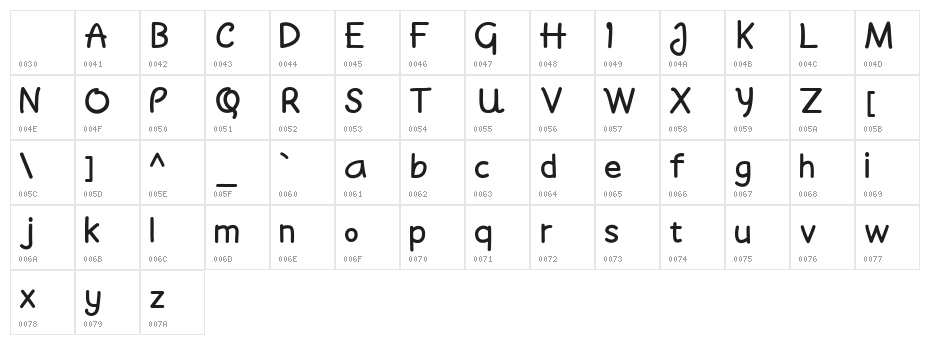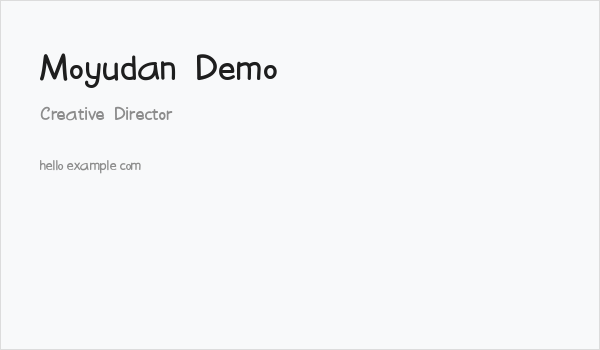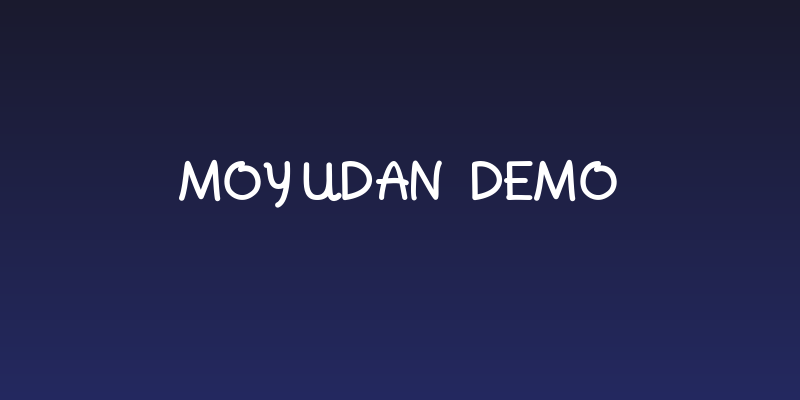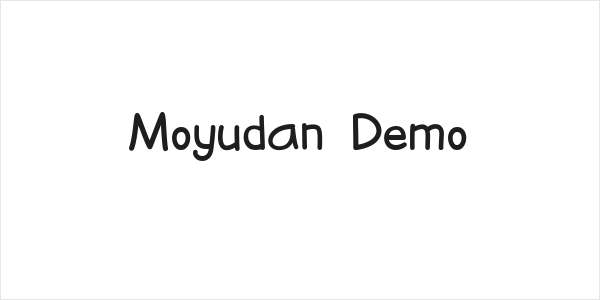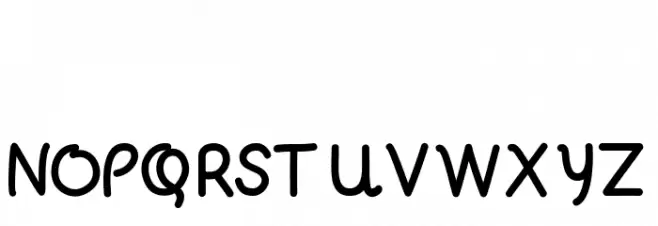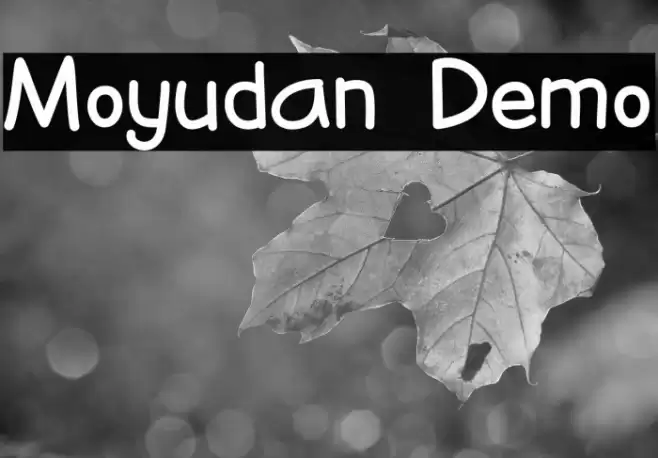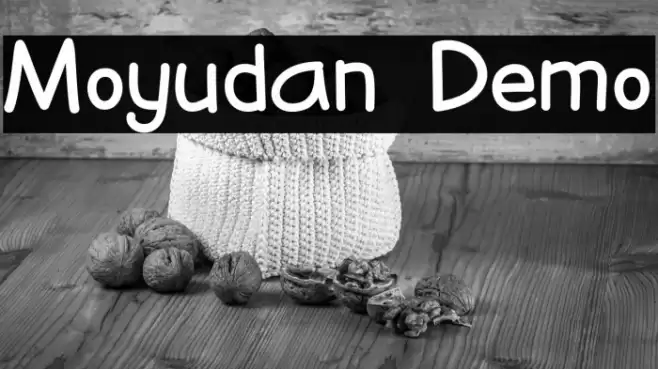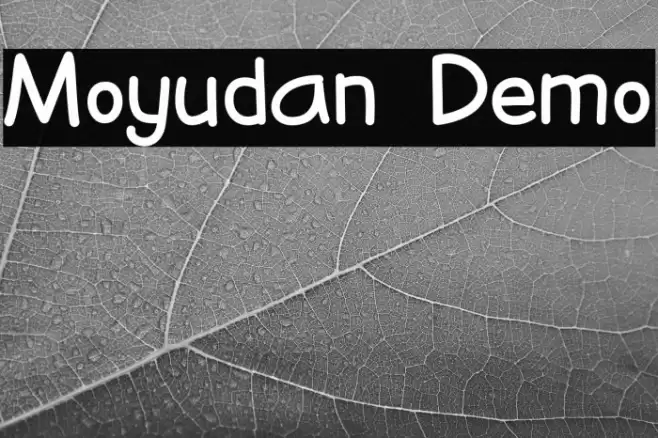
Moyudan Demo Font
This font features a playful and rounded style, characterized by its smooth curves and slightly irregular shapes. The letters have a hand-drawn appearance, giving them a friendly and approachable feel. The uppercase and lowercase letters maintain a consistent style, with rounded edges and a uniform stroke width. The numbers and special characters follow the same design principles, ensuring a cohesive look across all glyphs. This font is ideal for projects that require a casual and informal tone, such as children's books, greeting cards, or playful branding materials. Its unique style makes it stand out, while still being legible and versatile for various design applications.
| Proposed Projects | Children's books, greeting cards, playful branding, informal invitations, and creative posters. |